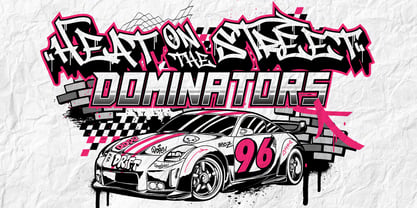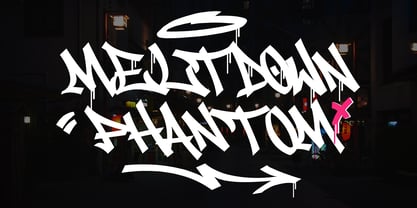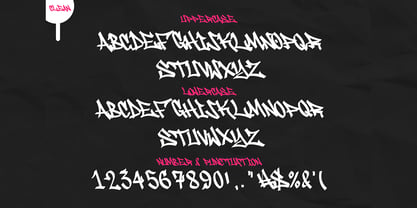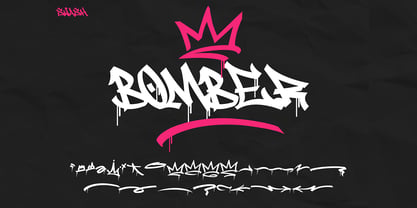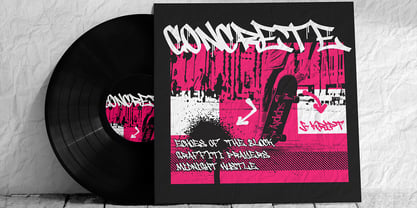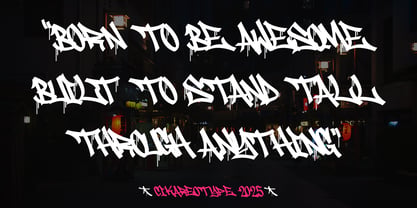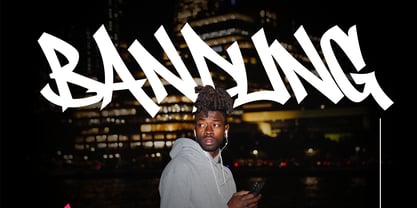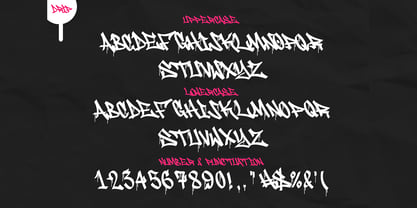
Meltdown Phantom
by Sipanji21
The Meltdown Phantom Font Family was designed by Sipanji and published by Sipanji21. Meltdown Phantom contains 4 styles and family package options. More about this family
Meltdown Phantom is a graffiti-style monoline script font inspired by raw street tags and underground culture. With two stylistic sets – Clean and Drip – it offers flexibility for both digital and print projects. Its natural flow mimics hand-tagged street art, perfect for branding, posters, apparel, and youth-targeted visuals.
Designers: Sipanji
Foundry: Sipanji21